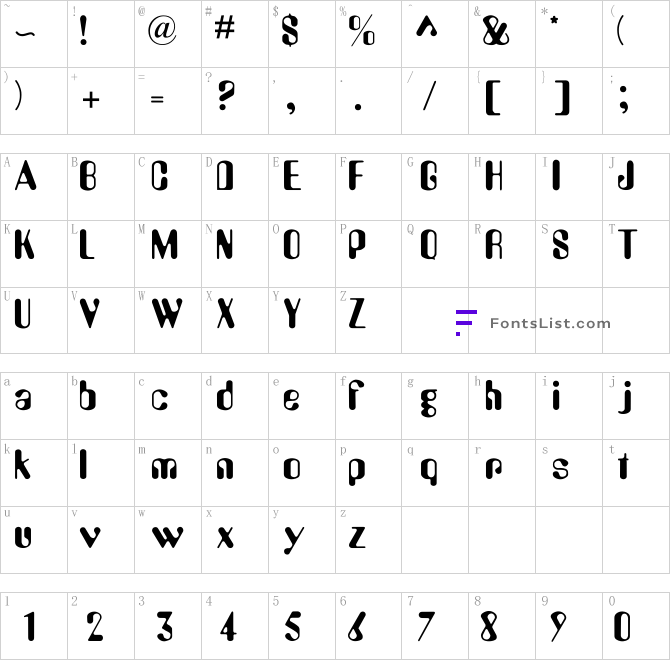
- Font Name:Amelia-Normal
- Subfamily:ALLTYPE:Amelia-Normal Regular:MIKE
- Full Name:Amelia-Normal
- PostScript:Amelia-Normal
Amelia-Normal.ttf is a very beautiful artistic font, Amelia-Normal.ttf is widely used in the design and printing of various books and pictures,Amelia-Normal.ttf has a strong visual impact,Amelia-Normal.ttf is a commonly used font in newspapers, magazines and books, and is used in posters, e-commerce Poster design, store design, logo design, font design and other fields.Amelia-Normal.